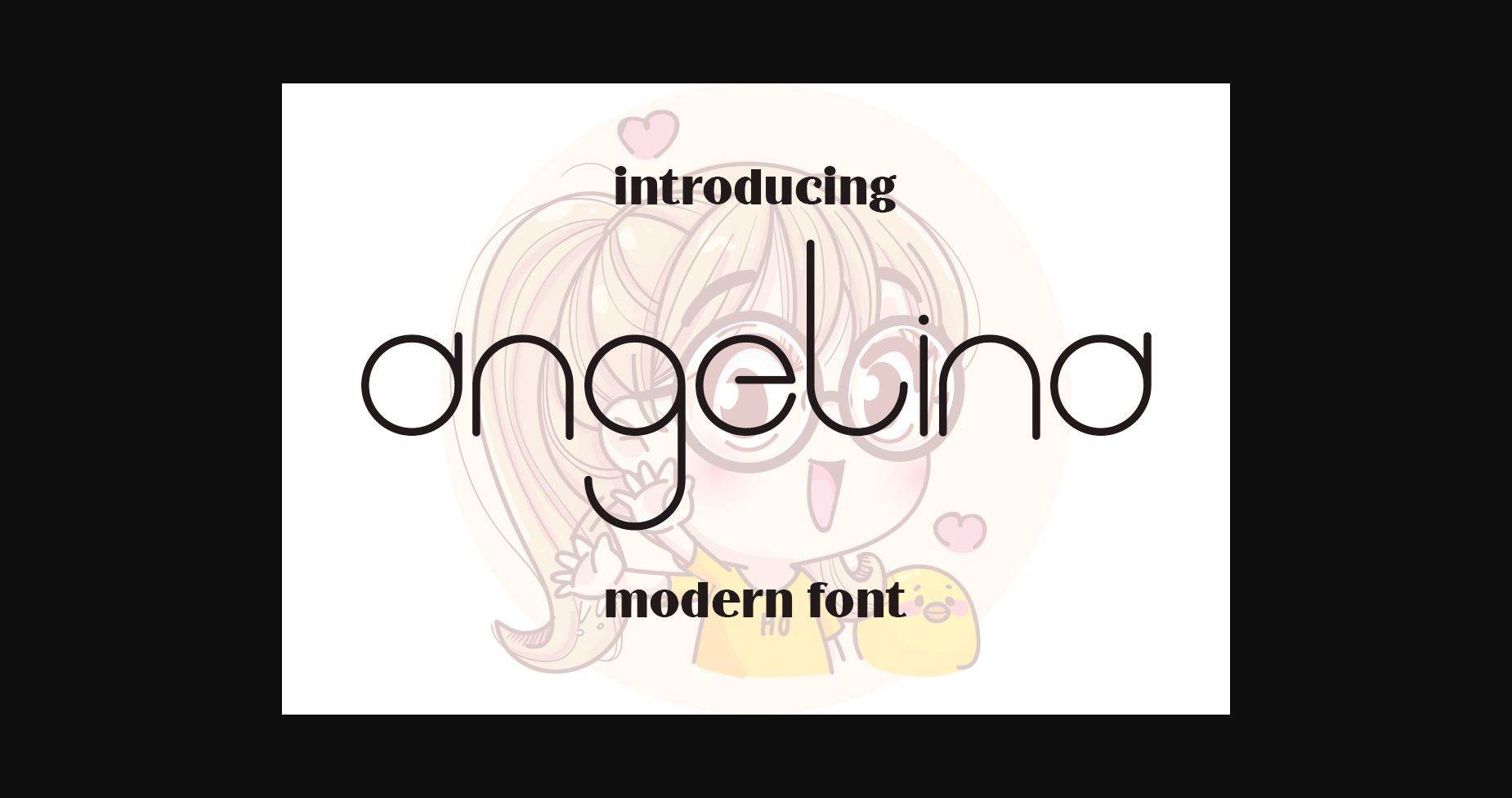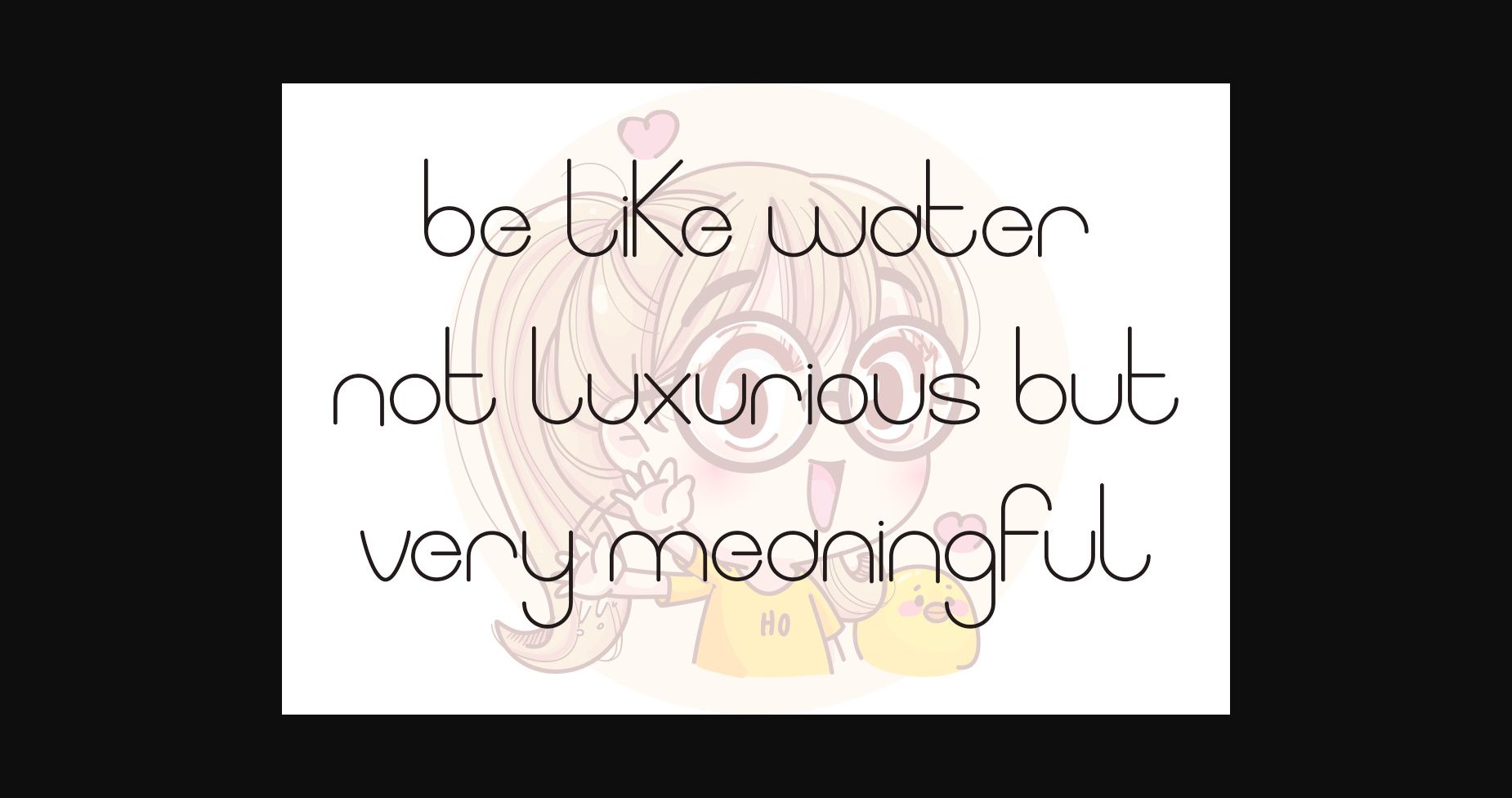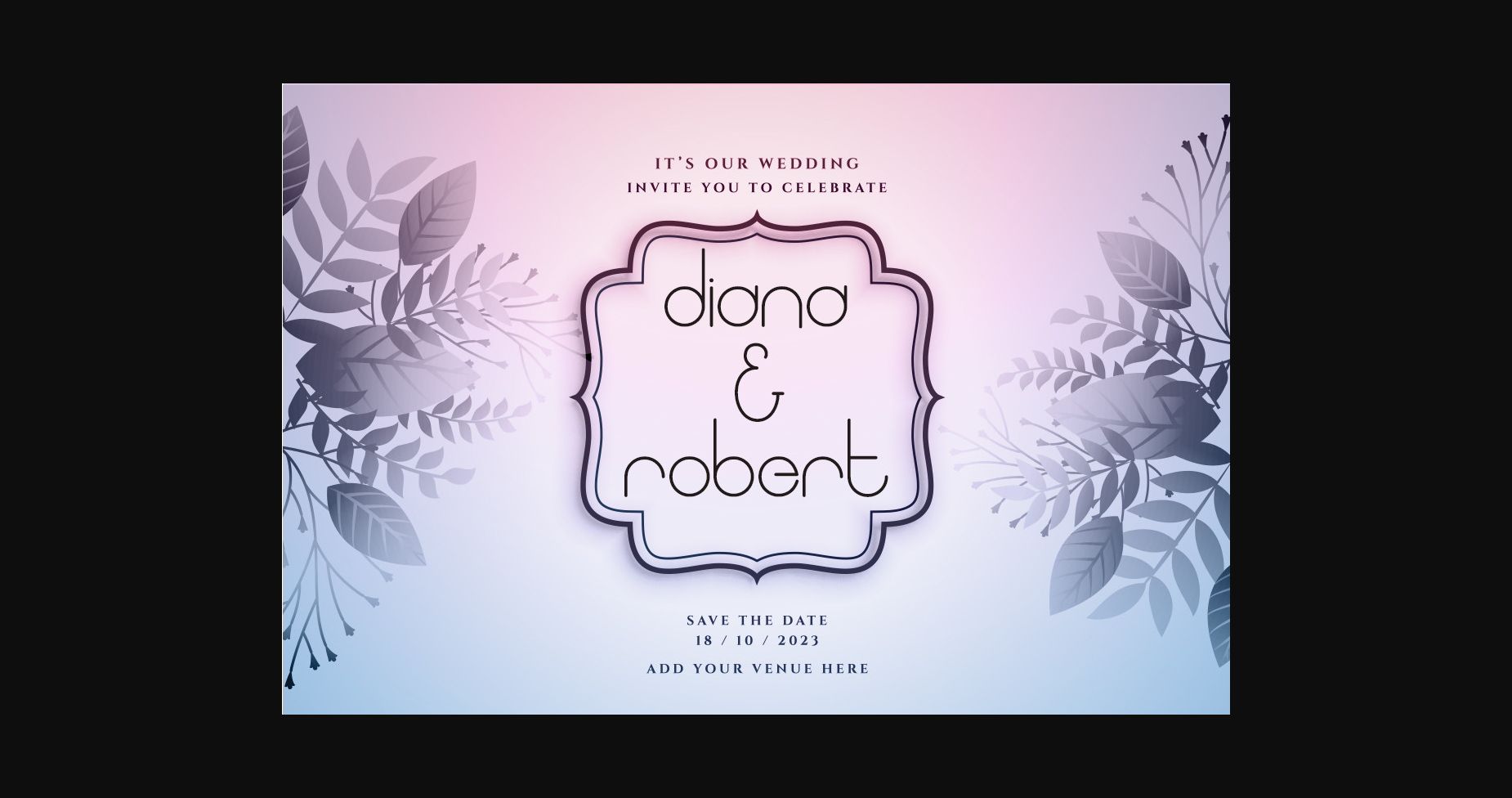
About Angelina Font
Angelina is a thin, delicate and round lettered sans serif font. It can easily be matched to an incredibly large set of projects, so add it to your creative ideas and notice how it makes them stand out!